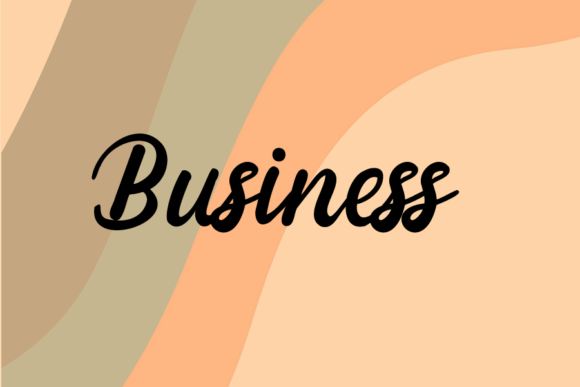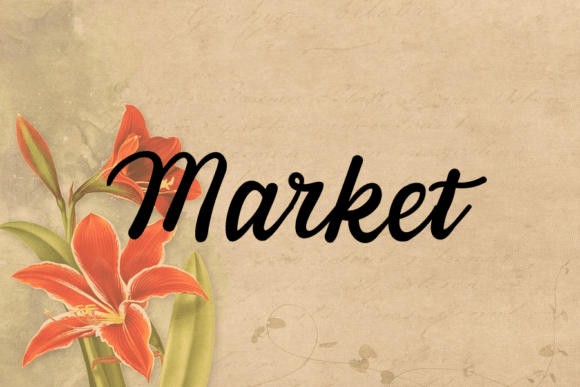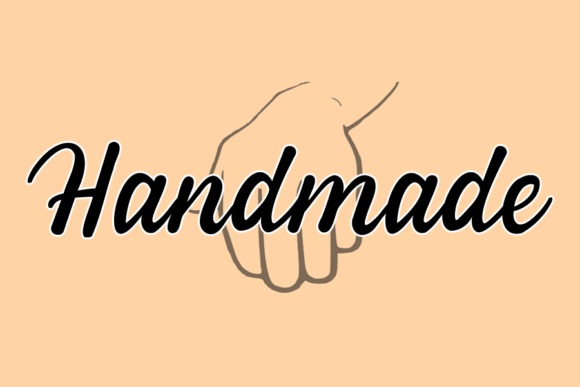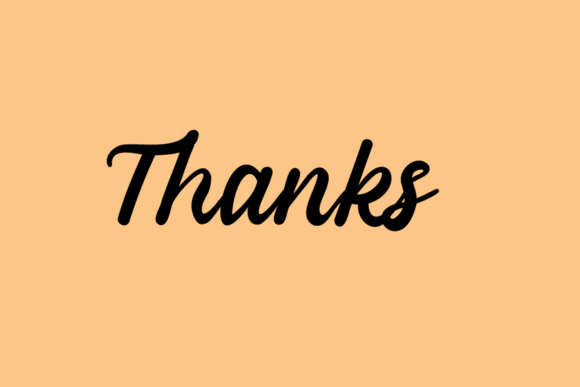
Online Font
About Online Font
Online is a lovely and cute handwritten script font. It has a classy, elegant, and modern look that can be used for logos, branding, invitations, stationery, wedding designs, social media posts, and much more!